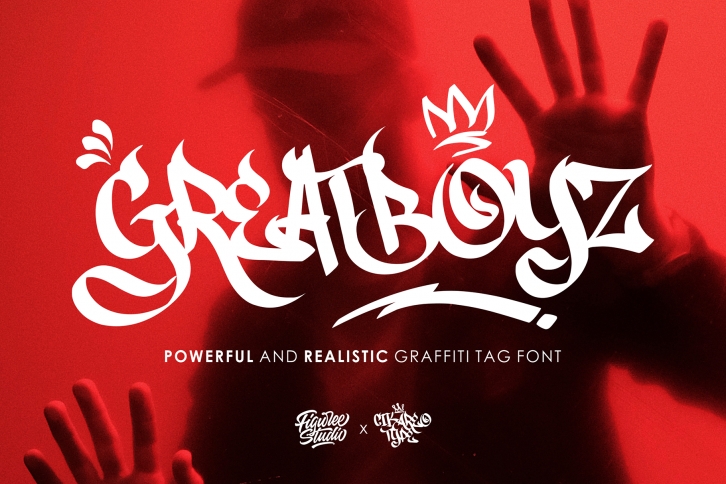
Greatboyz is a cool, graffiti-styled display font that has a street art vibe. This font is suitable for designs such as t-shirts, sportswear, logos, advertisements, clothing, and more.